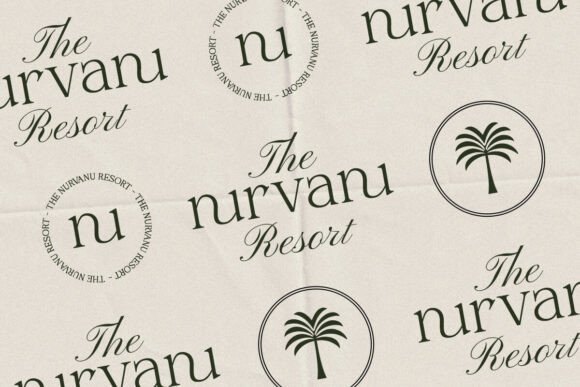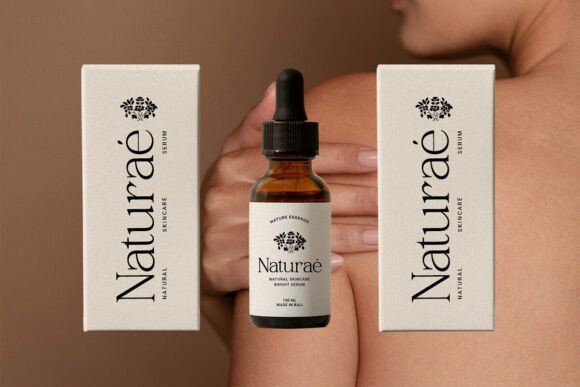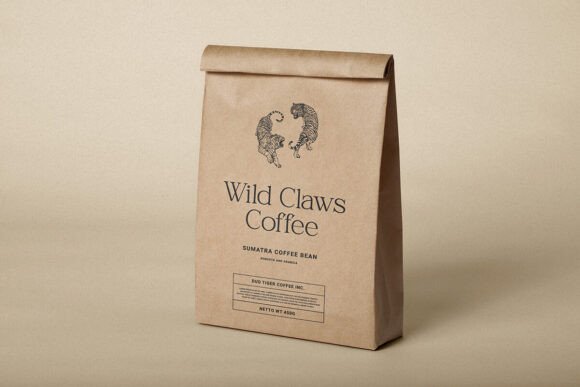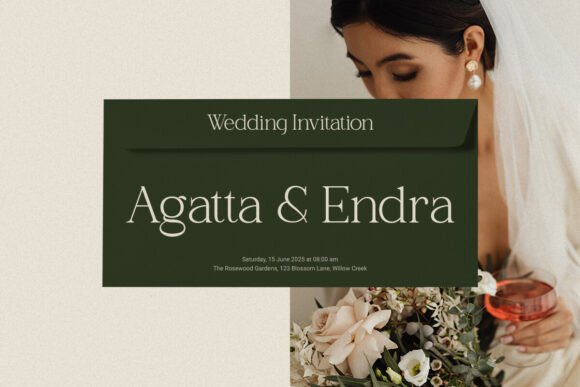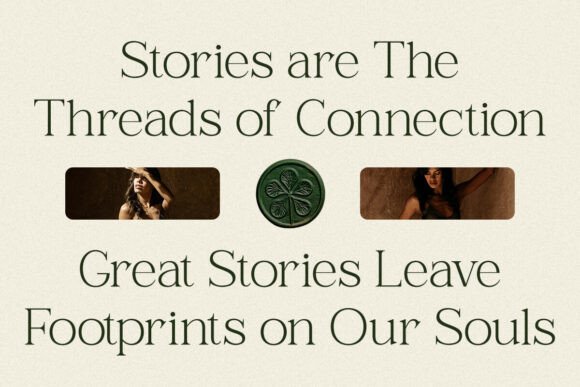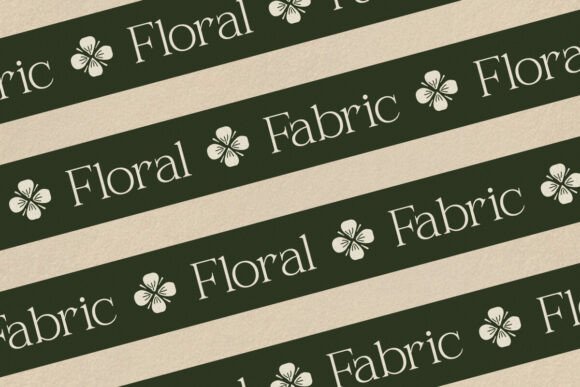
Introducing Bugantara Font: Elevate Your Designs with Timeless Elegance
In the world of typography, a well-crafted font can make all the difference in elevating your design projects from ordinary to extraordinary. For designers and crafters seeking a premium and distinguished typeface, Bugantara Font is an exceptional choice. This elegant and stylish thin serif font embodies sophistication and timeless beauty, making it perfect for luxury branding, editorial design, high-end packaging, wedding invitations, and more.
The Essence of Bugantara Font
Bugantara Font is a masterpiece of typographic design, blending classic aesthetics with modern elegance. Its refined letterforms, delicate strokes, and carefully crafted ligatures come together to create a truly unique and sophisticated typeface. Whether you’re working on a luxury brand identity, a high-end packaging project, or a wedding invitation, Bugantara Font is sure to impress.
Key Features of Bugantara Font
- Thin Serif Design: Bugantara Font features a thin serif design that exudes elegance and sophistication.
- Refined Letterforms: Each letterform is carefully crafted to perfection, ensuring a refined and polished look.
- Delicate Strokes: The font’s delicate strokes add a touch of elegance and whimsy to your designs.
- Ligatures: Bugantara Font includes carefully crafted ligatures to enhance the overall aesthetic of your text.
Perfect for Luxury Branding and Editorial Design
Bugantara Font is an ideal choice for designers working on luxury branding and editorial design projects. Its sophisticated and elegant design makes it perfect for:
- Luxury Brand Identity: Create a lasting impression with Bugantara Font’s elegant and refined design.
- Editorial Design: Elevate your editorial projects with the font’s classic yet modern aesthetic.
- High-End Packaging: Add a touch of luxury to your packaging designs with Bugantara Font.
- Wedding Invitations: Create beautiful and elegant wedding invitations with Bugantara Font.
Why Choose Bugantara Font?
With so many fonts available, why choose Bugantara Font? Here are just a few reasons:
- Timeless Elegance: Bugantara Font’s classic design ensures it will remain timeless and elegant for years to come.
- Versatility: The font is perfect for a wide range of design projects, from luxury branding to editorial design.
- High-Quality Design: Bugantara Font is crafted to perfection, ensuring a high-quality design that will elevate your projects.
In conclusion, Bugantara Font is an exceptional choice for designers and crafters seeking a premium and distinguished typeface. Its elegant and stylish thin serif design, refined letterforms, delicate strokes, and carefully crafted ligatures make it perfect for luxury branding, editorial design, high-end packaging, wedding invitations, and more. Elevate your designs with the graceful and artistic presence of Bugantara Font. Add this beautiful serif font to your collection today and start creating stunning, high-end designs with ease.